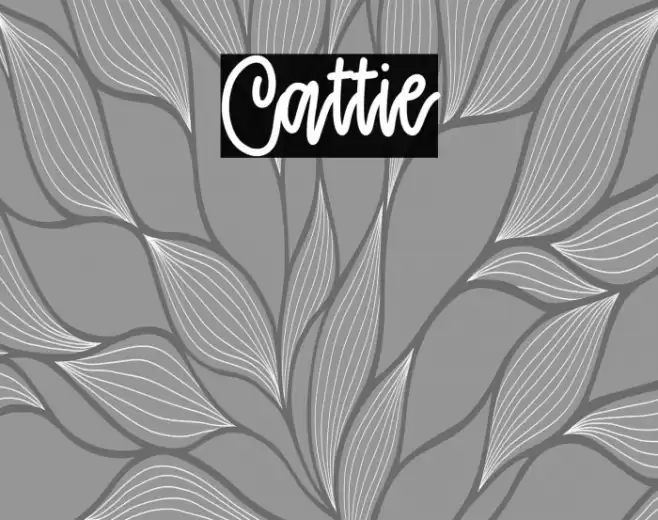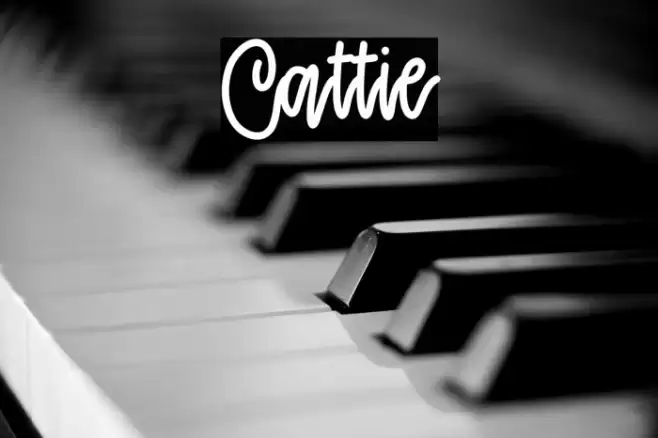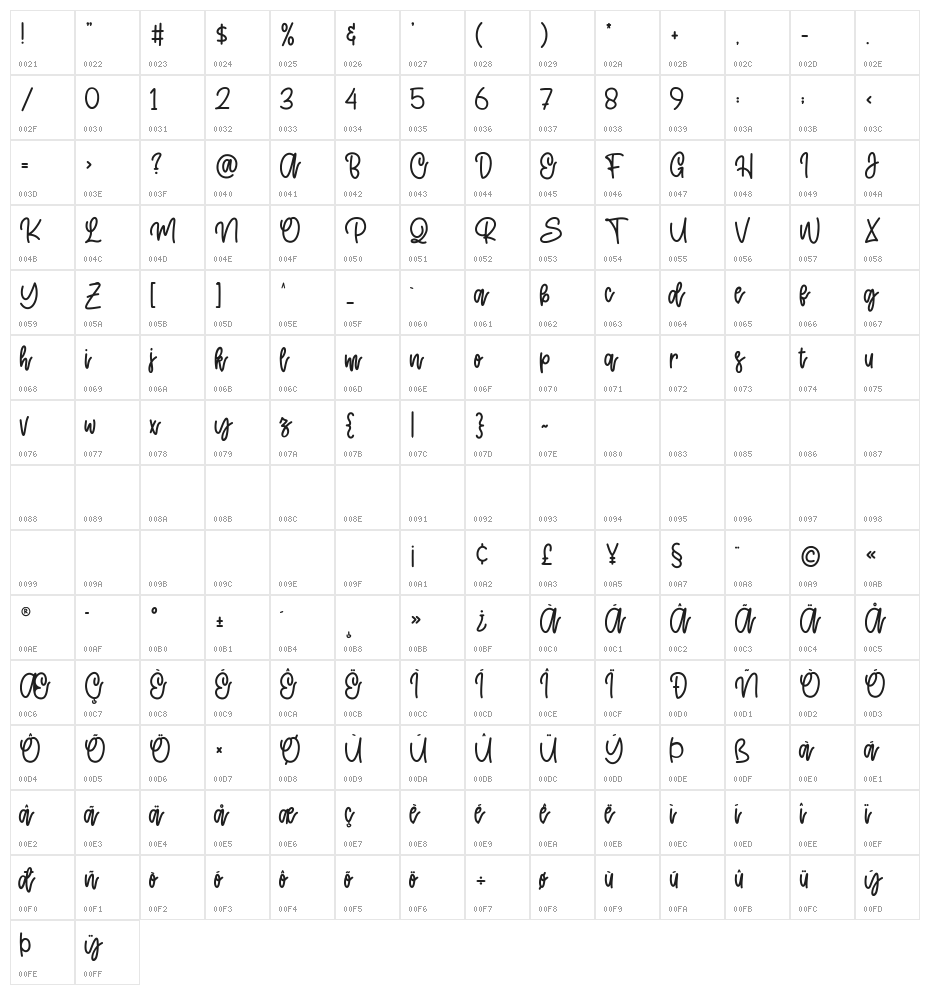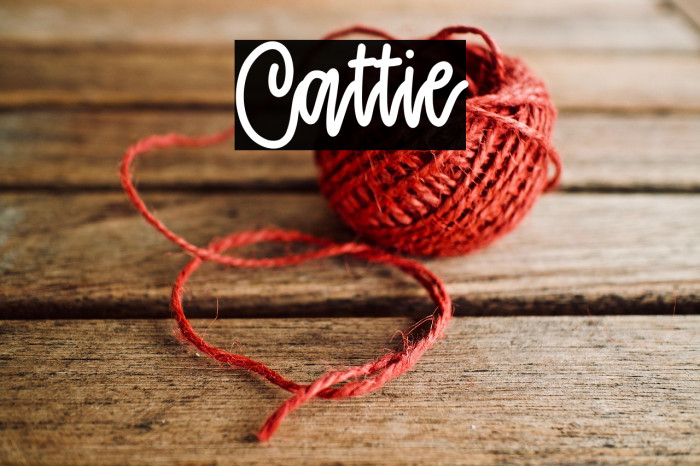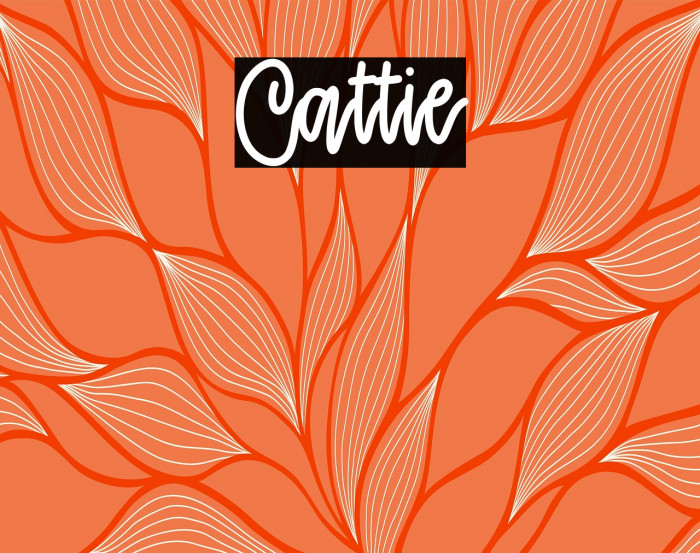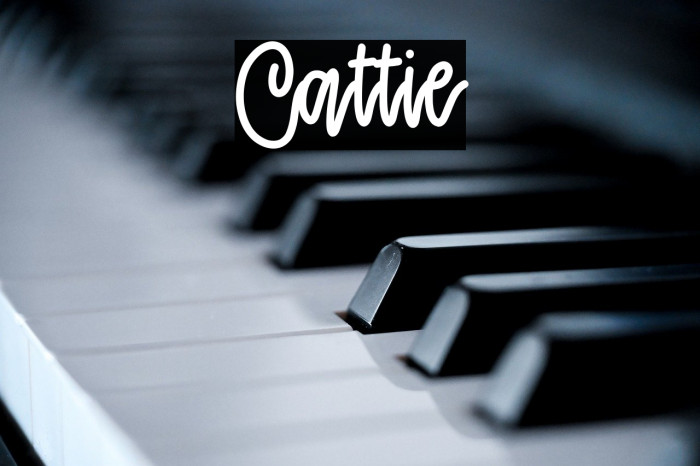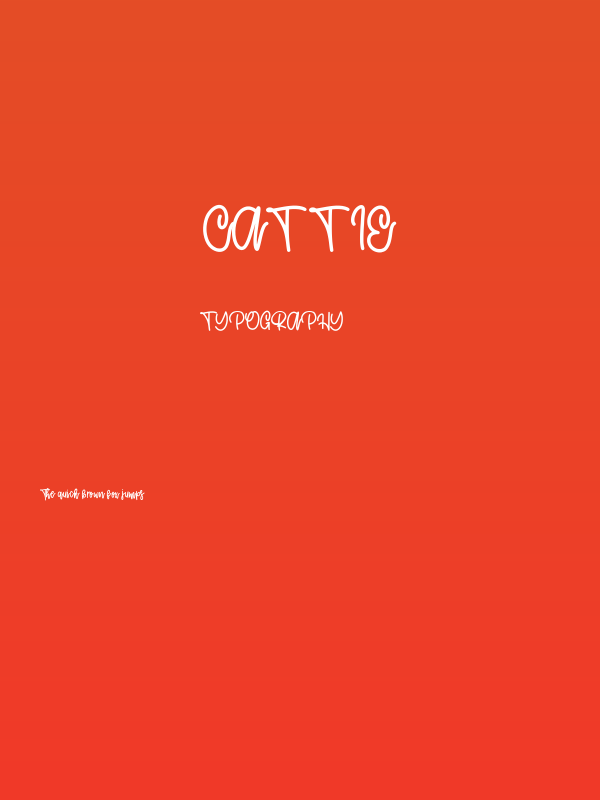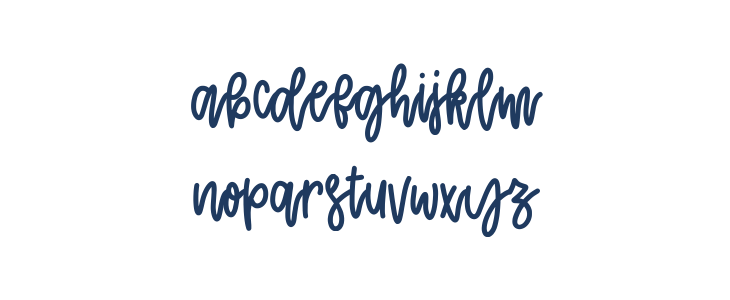
Cattie Font
Cattie Description
This font features a playful and flowing script style, characterized by its smooth, rounded edges and consistent stroke weight. The letters are interconnected, giving it a handwritten appearance that is both casual and elegant. The uppercase letters maintain a consistent height, while the lowercase letters exhibit a slight slant, enhancing the fluidity of the text. Numbers and special characters are crafted with the same attention to detail, ensuring uniformity across all glyphs. The font's design is versatile, suitable for a variety of creative projects that require a personal touch.
A playful, flowing script font with a handwritten appearance from Regular fonts.
- Proposed Projects: Ideal for greeting cards, invitations, branding, and social media graphics.
- Overall Style: Casual
- Use Case: Logos, Invitations, Social Media